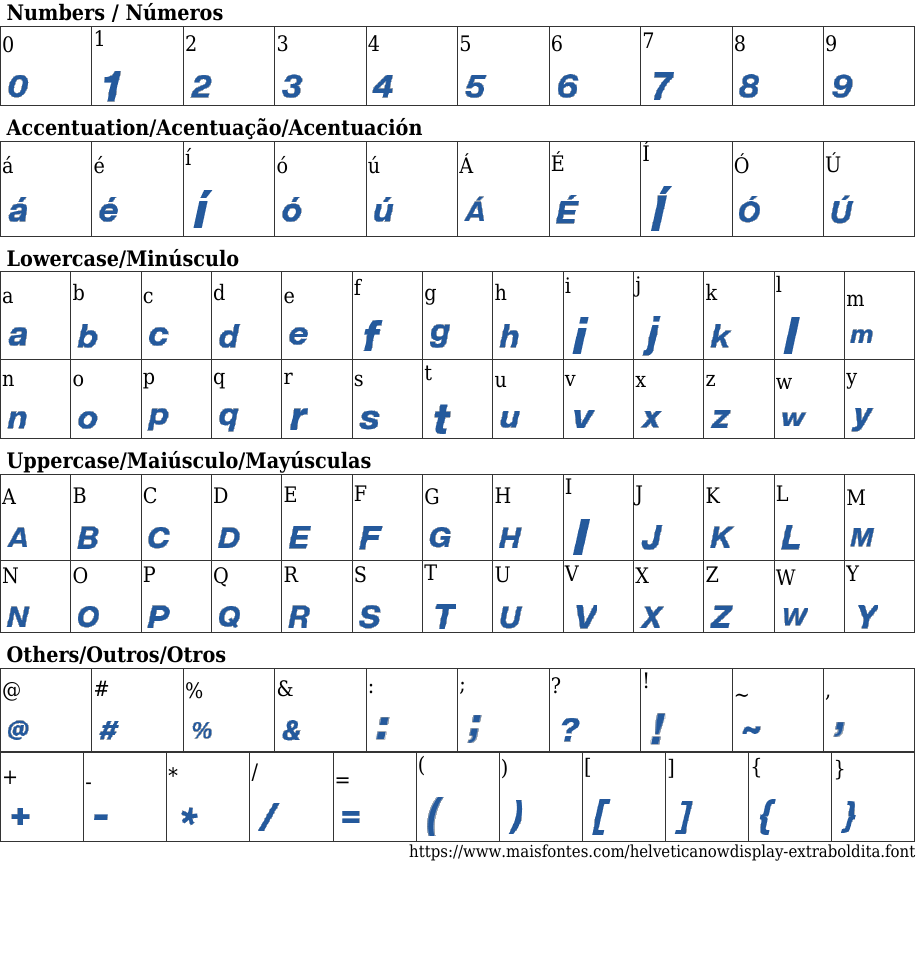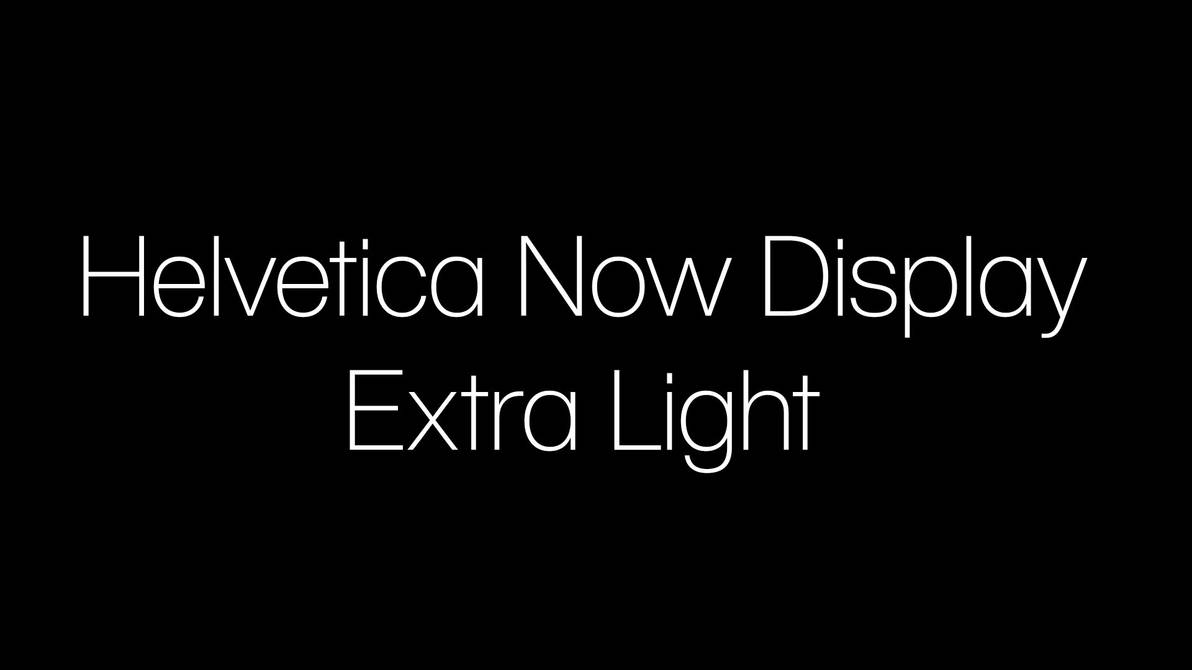
Helvetica Now Display Extrabold Font Free . Helvetica now display extra bold font. Every single glyph of helvetica has been redrawn. To use the font on your pc or mac, unzip the file after downloading it. A great choice for highlighting your design elements. Free download helvetica now display for macos, windows, sketch, figma, photoshop and web site. In all formats (helvetica now display woff2, helvetica now display. But you will get all the required licenses if you download them from the owner. Helvetica now display extrabold font free download. Download helvetica now display font, a new version of the world's most famous typeface, with optimised and redrawn. Helvetica now font is a simple, clean font family created by monotype with a modern design and remarkable appearance. Helvetica now features three optical sizes—micro, text, and display—each tailored for specific uses, ensuring optimal readability across various. You can get the helvetica now font in a zip file from our website, free for personal use only. Helvetica now display is a sans serif font family with various weights and styles. Download the font for free and learn how to install it in windows, macos, linux, photoshop, and.
Helvetica now display extra bold font. To use the font on your pc or mac, unzip the file after downloading it. Helvetica now font is a simple, clean font family created by monotype with a modern design and remarkable appearance. You can get the helvetica now font in a zip file from our website, free for personal use only. Helvetica now features three optical sizes—micro, text, and display—each tailored for specific uses, ensuring optimal readability across various. But you will get all the required licenses if you download them from the owner. In all formats (helvetica now display woff2, helvetica now display. Free download helvetica now display for macos, windows, sketch, figma, photoshop and web site. Helvetica now display extrabold font free download. Download helvetica now display font, a new version of the world's most famous typeface, with optimised and redrawn.
Helvetica Now Display Extrabold Font Free Helvetica now font is a simple, clean font family created by monotype with a modern design and remarkable appearance. You can get the helvetica now font in a zip file from our website, free for personal use only. Helvetica now features three optical sizes—micro, text, and display—each tailored for specific uses, ensuring optimal readability across various. A great choice for highlighting your design elements. Helvetica now display extra bold font. To use the font on your pc or mac, unzip the file after downloading it. Download the font for free and learn how to install it in windows, macos, linux, photoshop, and. Helvetica now display is a sans serif font family with various weights and styles. Download helvetica now display font, a new version of the world's most famous typeface, with optimised and redrawn. But you will get all the required licenses if you download them from the owner. Helvetica now font is a simple, clean font family created by monotype with a modern design and remarkable appearance. Every single glyph of helvetica has been redrawn. In all formats (helvetica now display woff2, helvetica now display. Free download helvetica now display for macos, windows, sketch, figma, photoshop and web site. Helvetica now display extrabold font free download.
Helvetica Now Display Regular by HammerBro101 on DeviantArt Helvetica Now Display Extrabold Font Free Helvetica now display extrabold font free download. Helvetica now display extra bold font. A great choice for highlighting your design elements. Helvetica now features three optical sizes—micro, text, and display—each tailored for specific uses, ensuring optimal readability across various. Download the font for free and learn how to install it in windows, macos, linux, photoshop, and. To use the font. Helvetica Now Display Extrabold Font Free.
datadanax.blogg.se Helvetica now free font download fontsplace Helvetica Now Display Extrabold Font Free Helvetica now features three optical sizes—micro, text, and display—each tailored for specific uses, ensuring optimal readability across various. You can get the helvetica now font in a zip file from our website, free for personal use only. Download helvetica now display font, a new version of the world's most famous typeface, with optimised and redrawn. To use the font on. Helvetica Now Display Extrabold Font Free.
Helvetica Now Display Condensed ExtraBold Italic免费下载和在线预览 站长字体 Helvetica Now Display Extrabold Font Free Helvetica now display extra bold font. You can get the helvetica now font in a zip file from our website, free for personal use only. A great choice for highlighting your design elements. Helvetica now font is a simple, clean font family created by monotype with a modern design and remarkable appearance. But you will get all the required licenses. Helvetica Now Display Extrabold Font Free.
Helvetica Now For A World That Needs Helvetica Always HOW Design Helvetica Now Display Extrabold Font Free Helvetica now display extra bold font. Helvetica now features three optical sizes—micro, text, and display—each tailored for specific uses, ensuring optimal readability across various. To use the font on your pc or mac, unzip the file after downloading it. Free download helvetica now display for macos, windows, sketch, figma, photoshop and web site. Every single glyph of helvetica has been. Helvetica Now Display Extrabold Font Free.
Helvetica Font Family Dafont Free Helvetica Now Display Extrabold Font Free Helvetica now display extra bold font. But you will get all the required licenses if you download them from the owner. Helvetica now display is a sans serif font family with various weights and styles. Download the font for free and learn how to install it in windows, macos, linux, photoshop, and. Helvetica now display extrabold font free download. In. Helvetica Now Display Extrabold Font Free.
Helvetica Now, la nouvelle version de la typographie légendaire adaptée Helvetica Now Display Extrabold Font Free Helvetica now display extrabold font free download. Download the font for free and learn how to install it in windows, macos, linux, photoshop, and. Helvetica now display extra bold font. Free download helvetica now display for macos, windows, sketch, figma, photoshop and web site. Helvetica now features three optical sizes—micro, text, and display—each tailored for specific uses, ensuring optimal readability. Helvetica Now Display Extrabold Font Free.
MONTSERRAT EXTRABOLD FONT Helvetica font download, Free fonts Helvetica Now Display Extrabold Font Free In all formats (helvetica now display woff2, helvetica now display. Download the font for free and learn how to install it in windows, macos, linux, photoshop, and. Helvetica now features three optical sizes—micro, text, and display—each tailored for specific uses, ensuring optimal readability across various. But you will get all the required licenses if you download them from the owner.. Helvetica Now Display Extrabold Font Free.
Helvetica Extra Bold Font Download Printable Online Helvetica Now Display Extrabold Font Free But you will get all the required licenses if you download them from the owner. Helvetica now features three optical sizes—micro, text, and display—each tailored for specific uses, ensuring optimal readability across various. Helvetica now display extra bold font. Helvetica now font is a simple, clean font family created by monotype with a modern design and remarkable appearance. Download helvetica. Helvetica Now Display Extrabold Font Free.